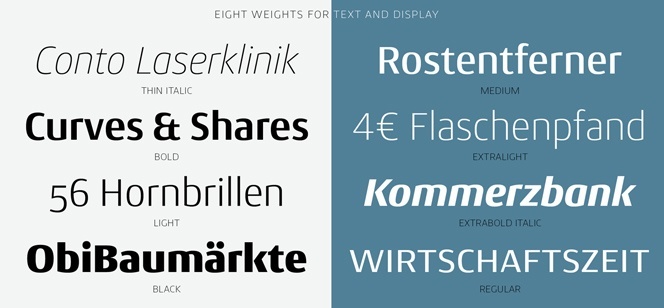
Conto font
Conto font is a contemporary sans serif font that is designed mainly for corporate identity as well as advertising and editorial design. Also, there is a special set of ligatures that make Conto font extremely appropriate for logo type and lettering.
The main features of this font are the reduced lowercase shapes and the rising contrast as well as its simple geometric forms. It contains more than 850 glyphs and offers wide range of OpenType features like fractions, small caps, different kinds of figures, fractions, case and small-cap sensitive punctuation etc. Language support for all Latin-script based languages is provided.
Conto font comes in eight weights (Thin Italic, Bold, Light, Black, Medium, Extralight, Extrabold Italic and Regular). There are three free demo fonts – Thin, Medium and Black. The stylish Thin and the powerful Black are well suited for display typography whereas Regular, Medium and Bold weights are perfect for tables and text.
Conto font is designed by the German type designer Nils Thomsen. It is his next big work after the hugely impressive Jabana font that was included in our special selection – 15 great font debuts on MyFonts – 2014, 1st half. Also this font is dedicated to the late Peter Bruhn – a famous type designer and the founder of the renowned Fountain foundry.
Designer: Nils Thomsen